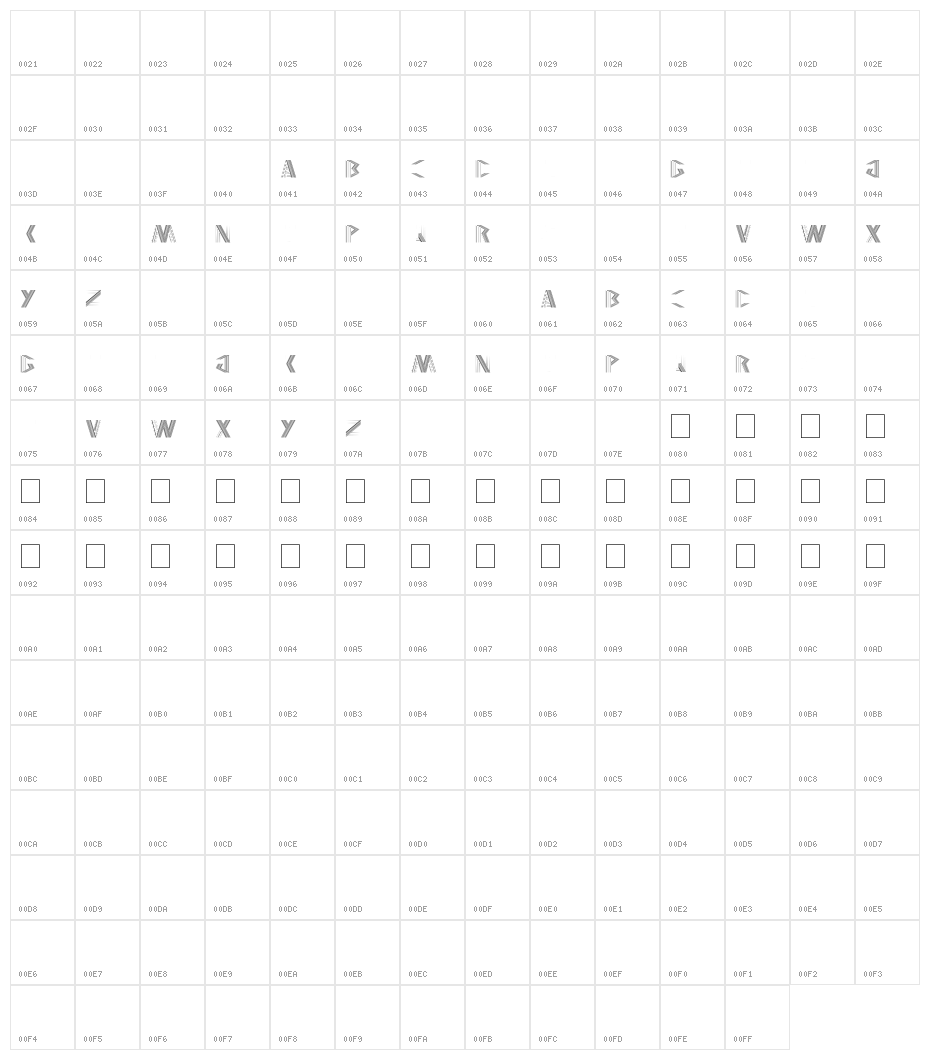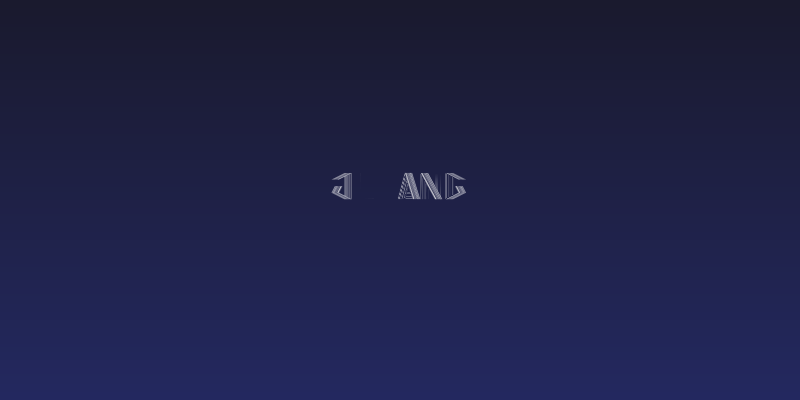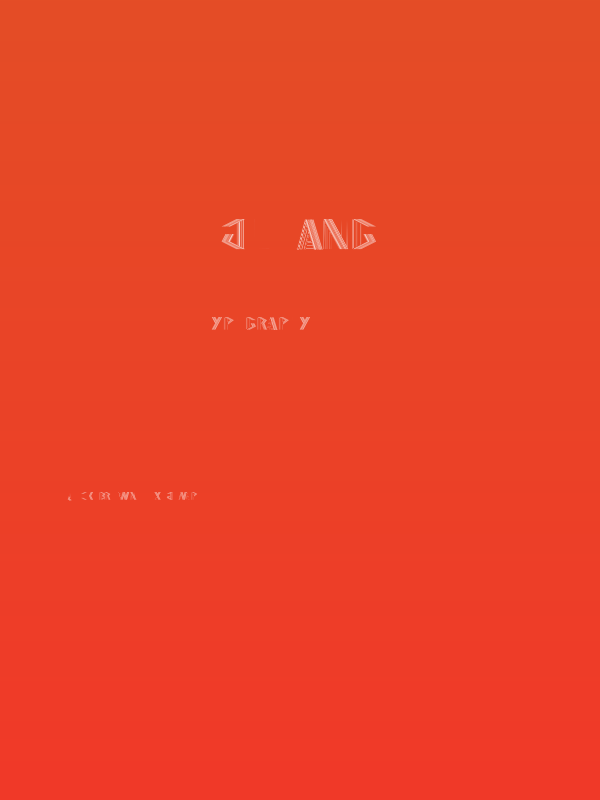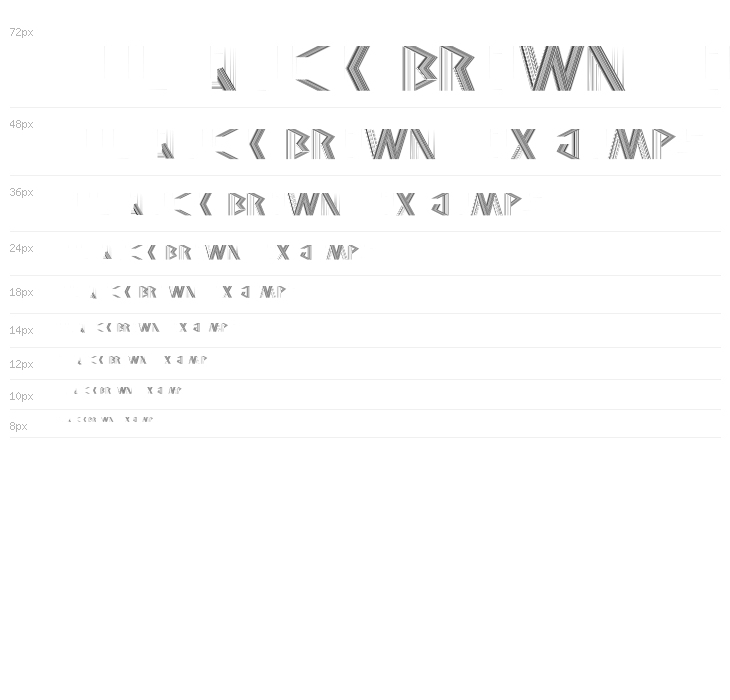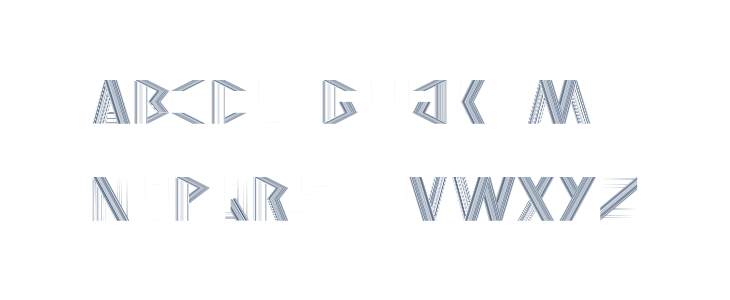
JELANG Font
JELANG Description
This font features a bold and striking geometric design with intricate line patterns that create a sense of depth and dimension. Each letter is constructed with a series of parallel lines, giving it a textured appearance reminiscent of optical illusions. The uppercase letters are uniform in height, with sharp angles and clean edges that contribute to a modern and futuristic aesthetic. The overall design is highly decorative, making it suitable for eye-catching displays and creative projects. The font's unique style is both artistic and structured, offering a visually engaging experience.
| Proposed Projects | Ideal for posters, album covers, branding, and any project requiring a bold, artistic statement. |